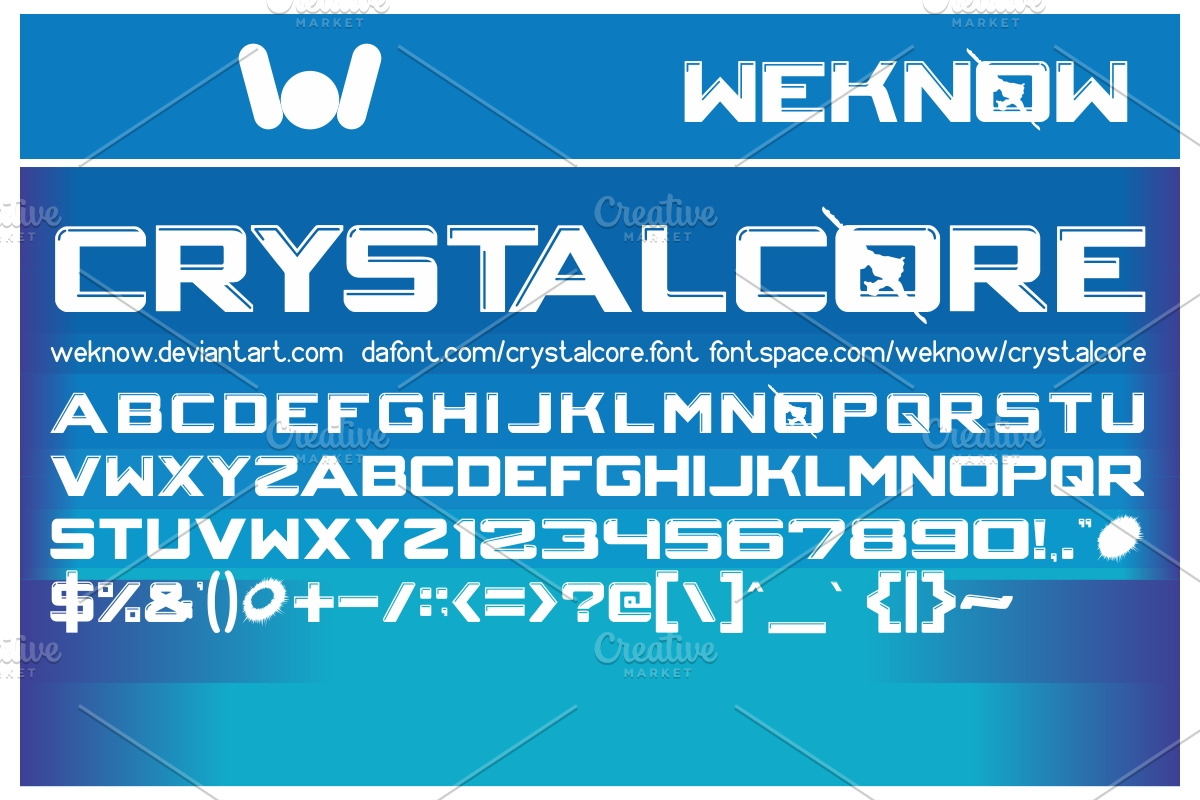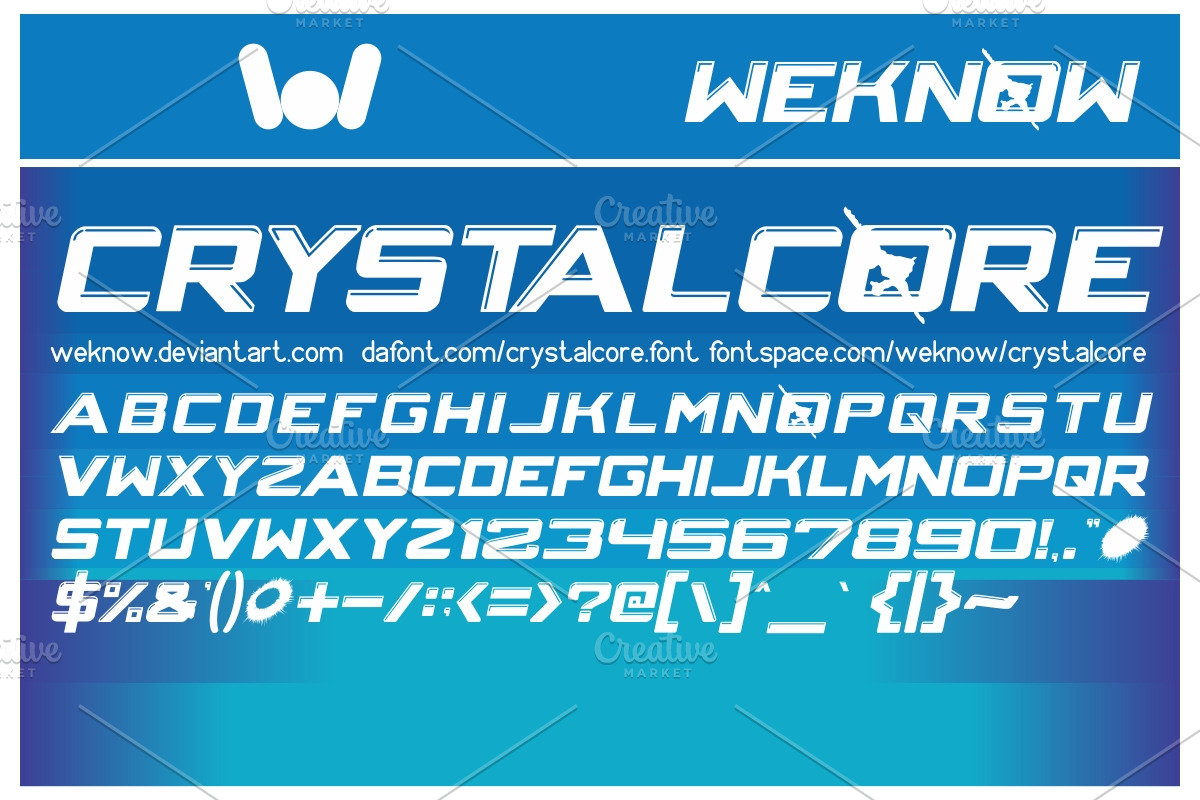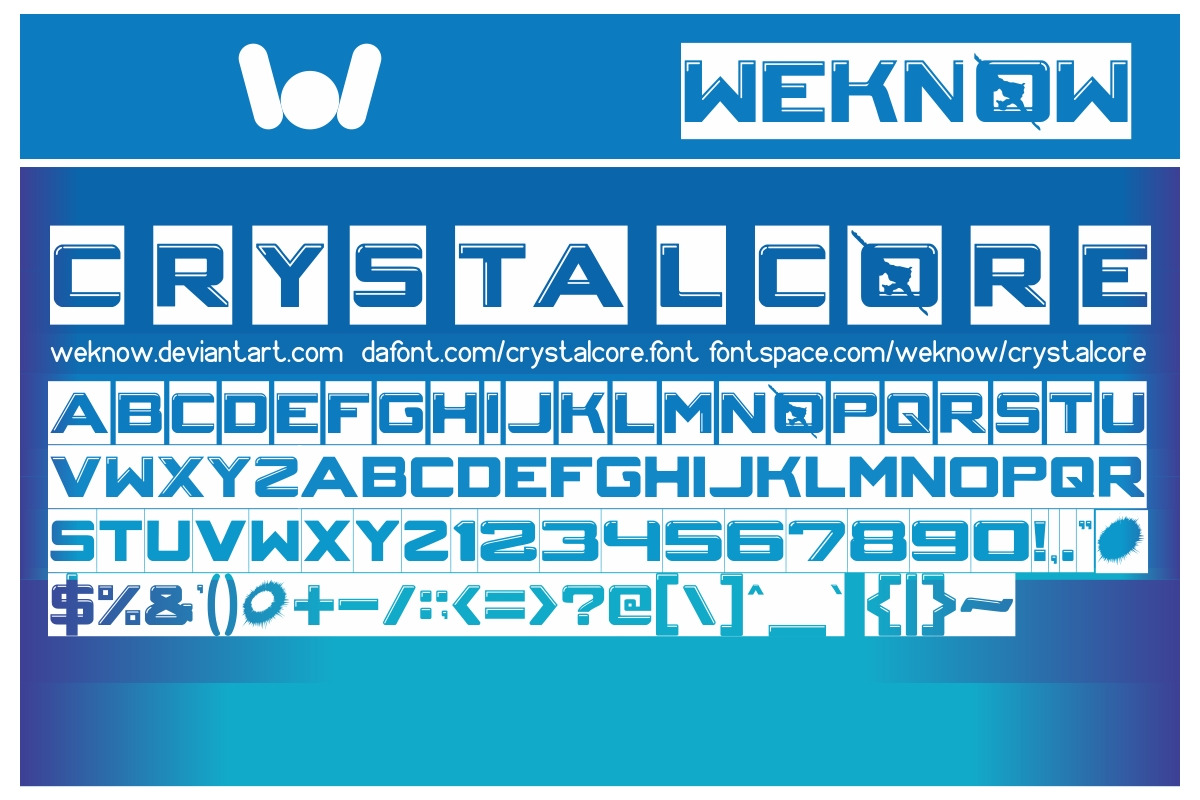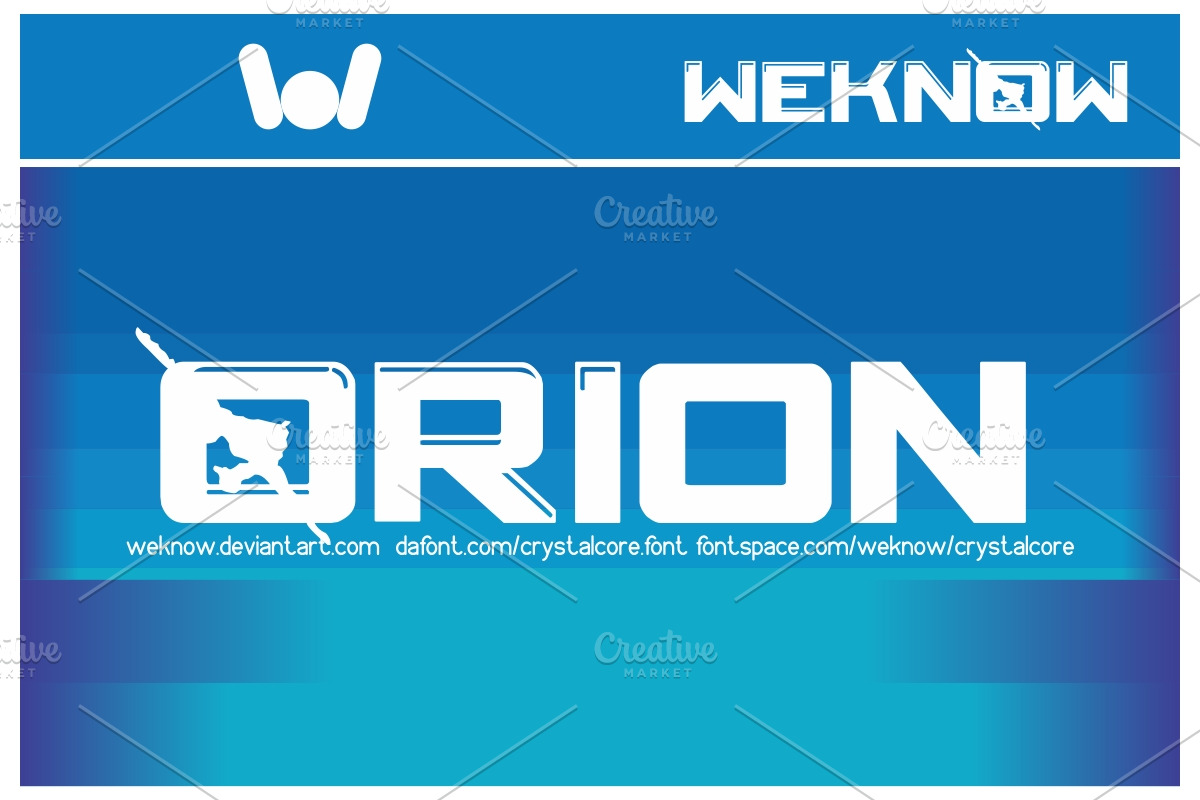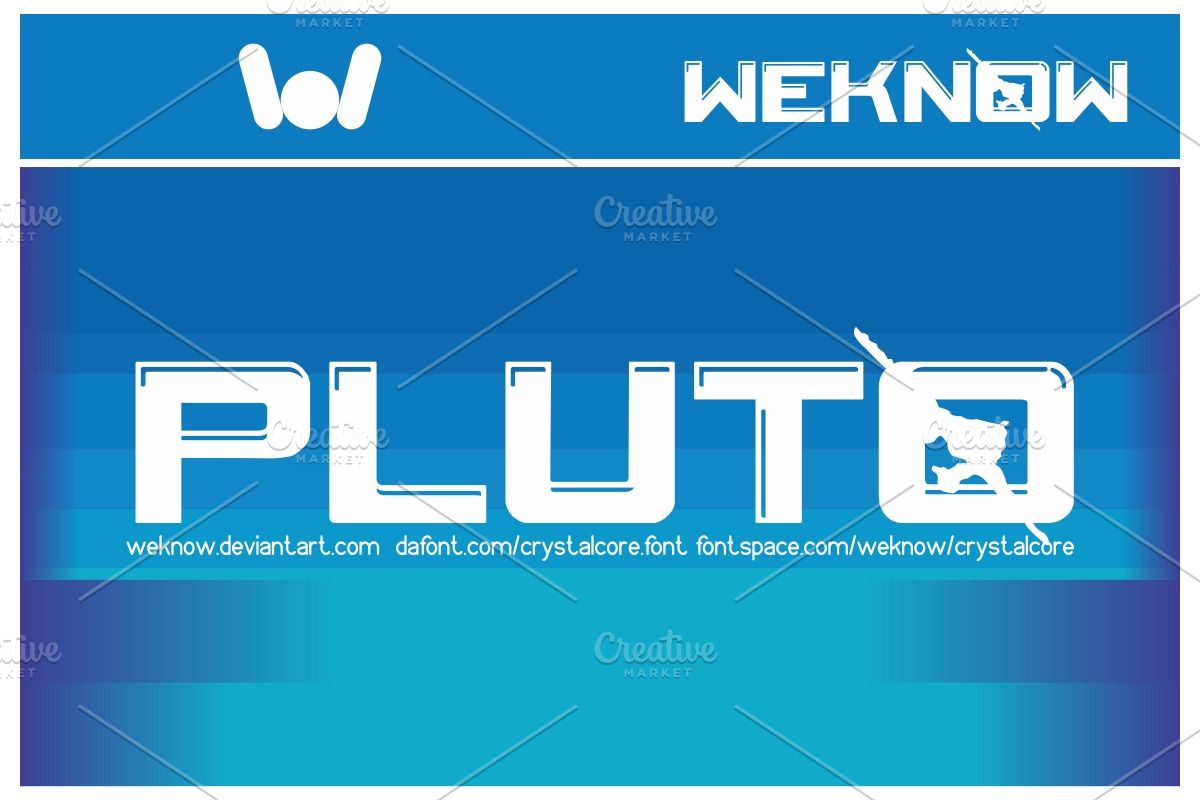
crystal core font
available style: Crystal Core-Inverse, Crystalcore-Italic
Why crystal core font is worth a look
crystal core font by weknow fits naturally into Branding, posters, packaging, typography.